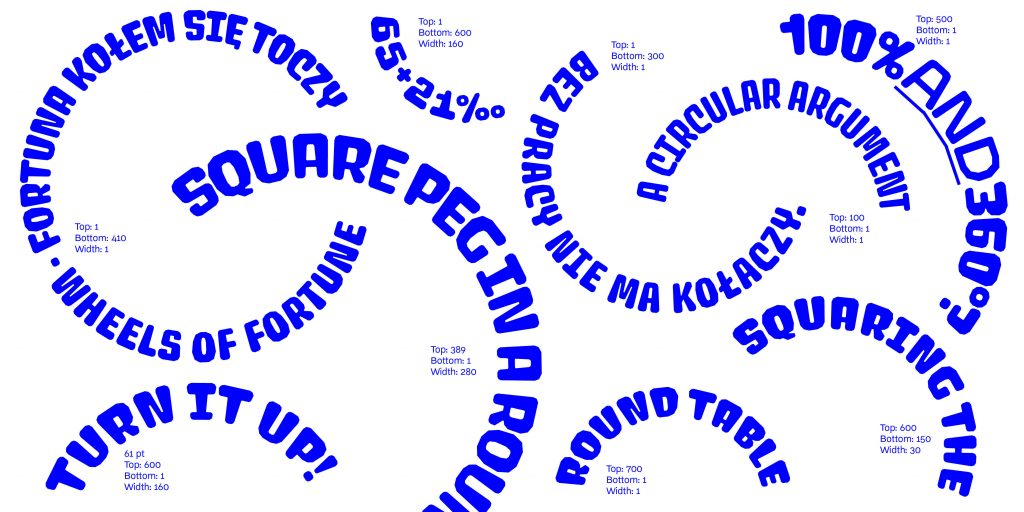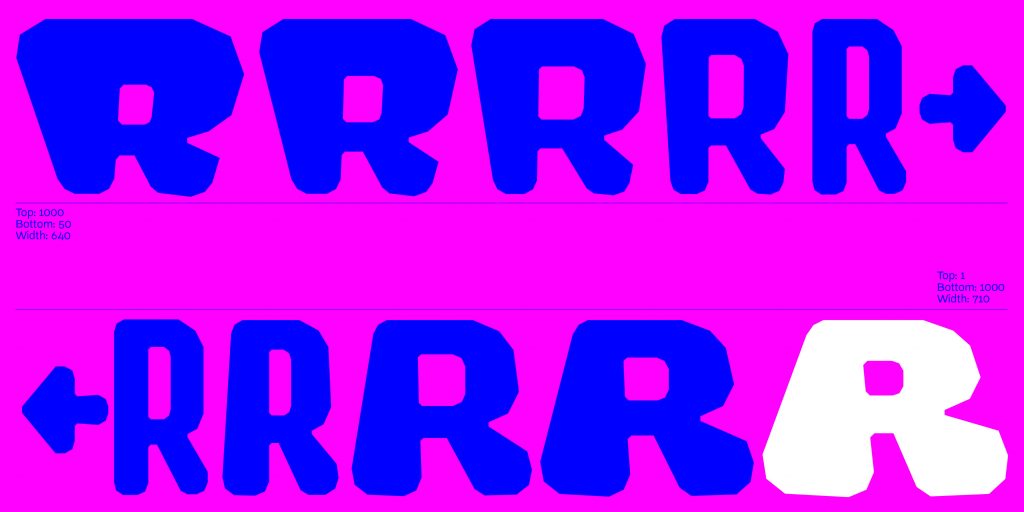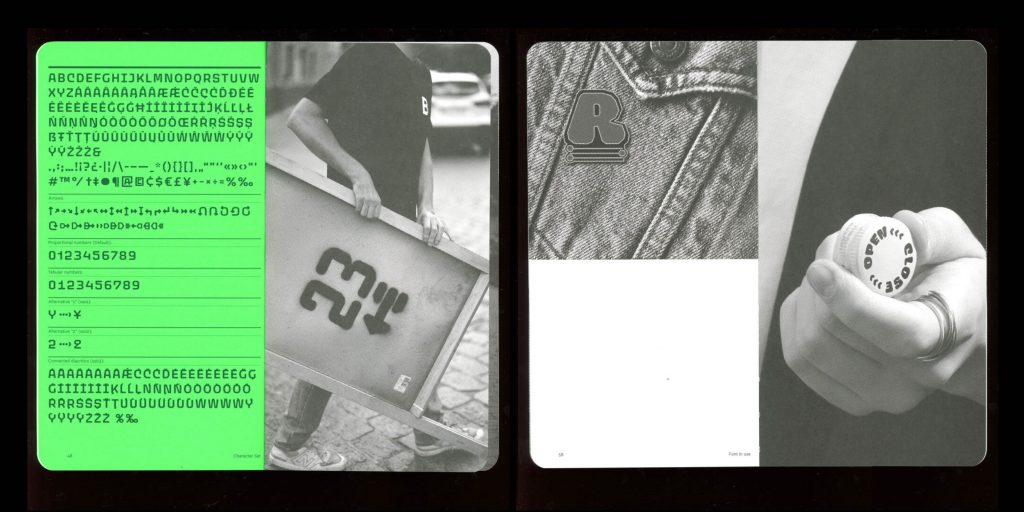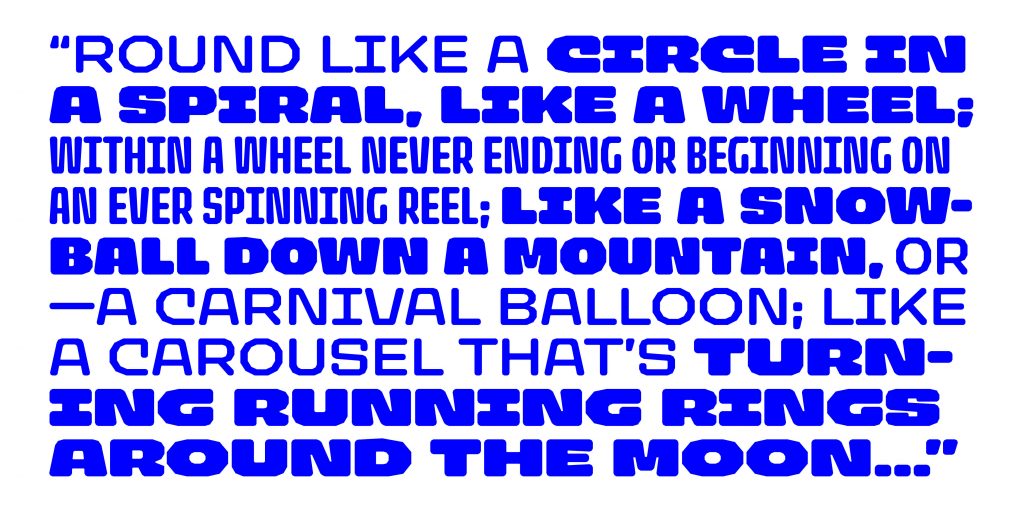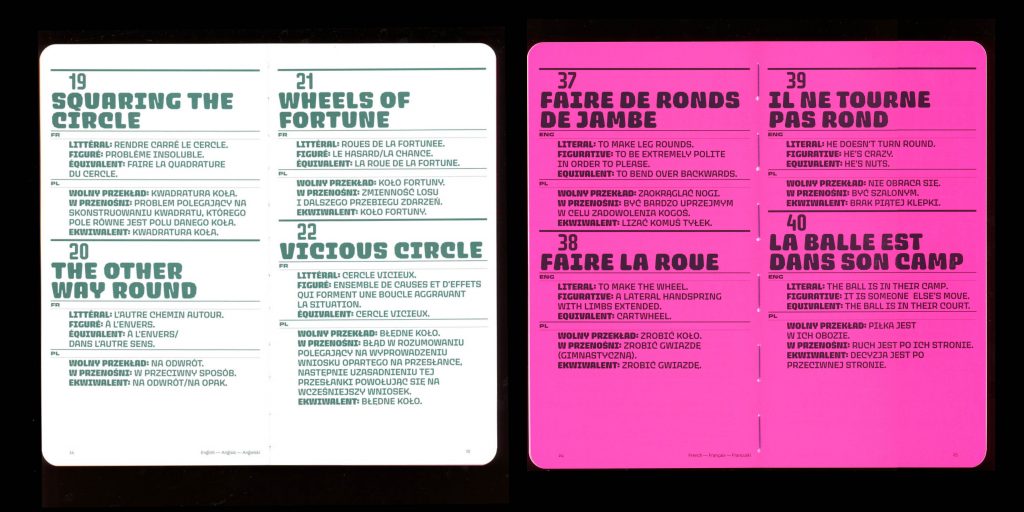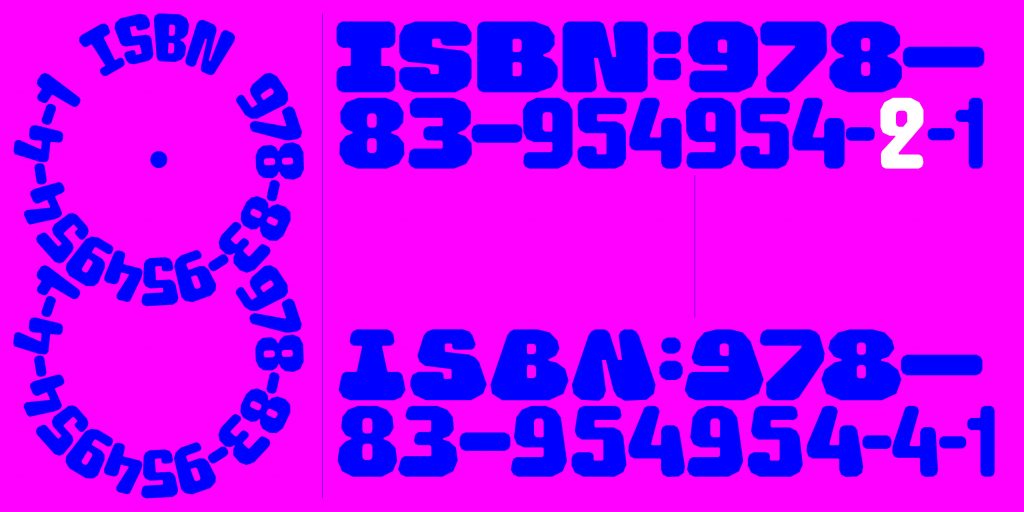
Name: Radius
Designer: Radek Łukasiewicz
Foundry: Three Dots Type
Release Date: 10/2021
Back Story: Setting type on curves presents today’s designers with a unique set of challenges— correcting the awkwardness of letter spacing on a vector curve can feel like arm wrestling with a giant. Yet curving text is natural in handwriting and lettering, seen across many cultures and scripts, and numerous examples of beautifully-curved type exist on coins and stamps that predate the invention of commercial typefaces. Łukasiewicz decided to address the challenge by creating an uppercase-only variable typeface that allows progressive adjustment in the anatomy of the characters, depending on the radius of the circle of the type’s curved path. The results are surprising, experimental, and not traditionally beautiful letterforms that nevertheless sit on curved paths much better than characters designed to live on ruler-straight baselines.
Why’s it called Radius? The short, memorable name (marketing!) relies upon a reference to the geometric properties of a circle and, as the designer says, to the “rubbery” nature of the letterforms.
What are its distinguishing characteristics? Paradoxically, the letter shapes are composed of straight segments with no curves at all. Manipulating the angles of stem outlines can create a great number of kinks (broken shapes around the control points). As it was impossible to control this, the designer’s pragmatic solution was to avoid curves at all. The user can adjust the variable letterforms until they become ungainly and even kind of clunky, distorting them into odd shapes. “Radius is designed to give users as much flexibility and adjustment as possible, with the ability to control letters’ top and bottom weight independently, creating characteristic tapering and bulging in width. This feature defines the design, which follows its own mechanism rather than a convention. As a result, there are many unexpected shapes,” says Łukasiewicz.
What should I use it for? “Definitely for typesetting anything on curves!,” Łukasiewicz says. “We hope we proved that it works as both a title and body font by publishing a pocket English-French-Polish dictionary of circle-related proverbs.”
What other typefaces do you like to pair it with? It pairs well with calmer sans serifs, both humanist and grotesk—try Brando or Norbert. “It’s exciting to see what designers will come up with, especially nowadays where tension, motion, and responsiveness build the visual expression. I can imagine it used for titles in lifestyle or sports magazines. We hope that Radius will build its own surprising story because of its freedom of distortion,” says Łukasiewicz. His line of thinking about variable fonts—technology still in its early days—paves the way for the development of more typefaces that will free designers, finally, from chasing their tails around type on curved paths.